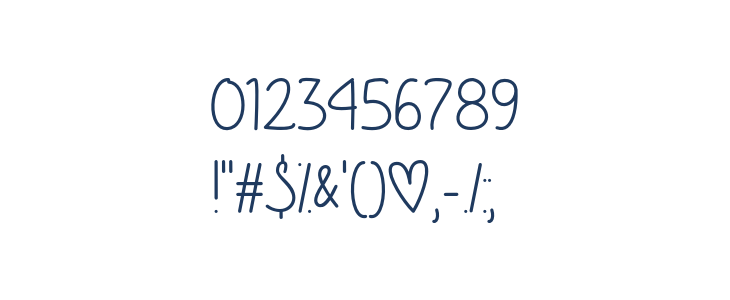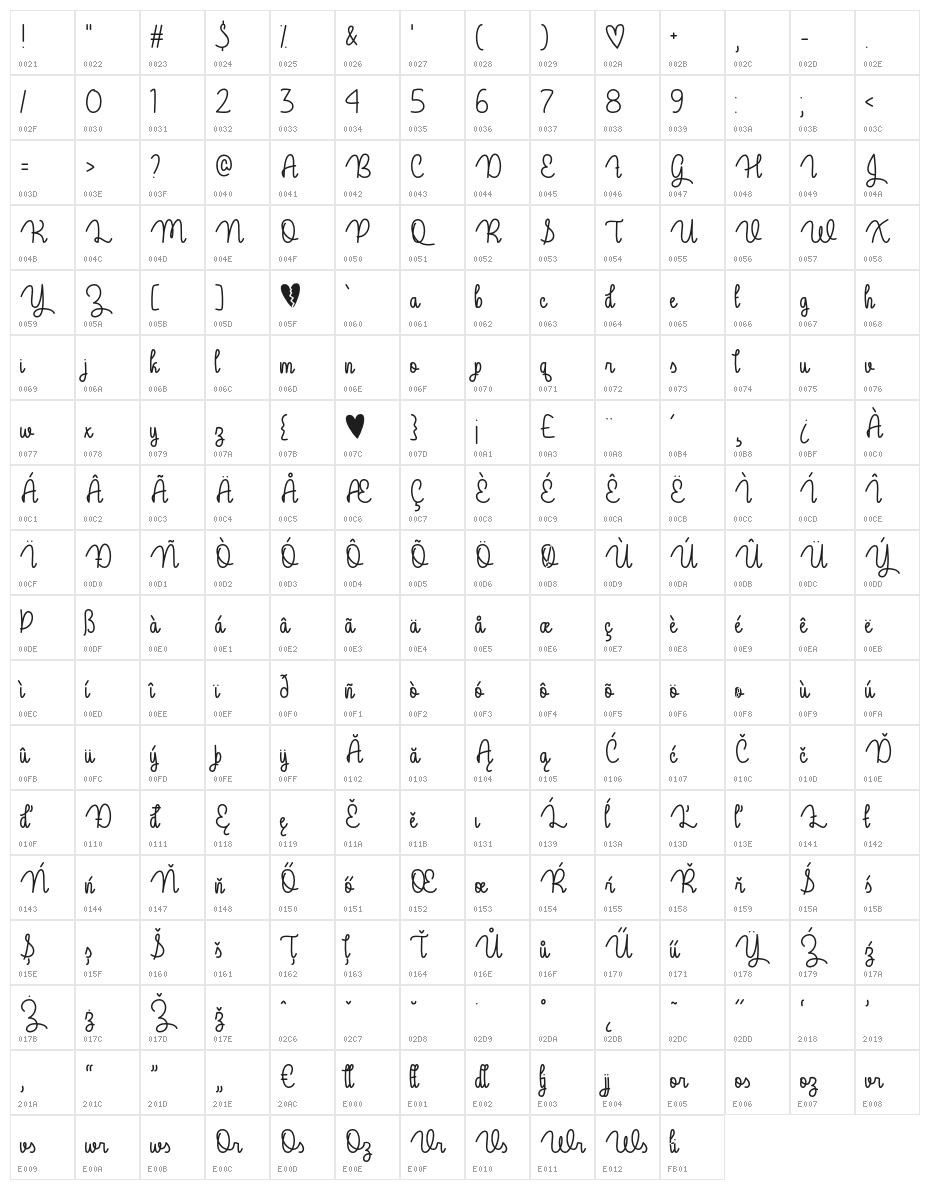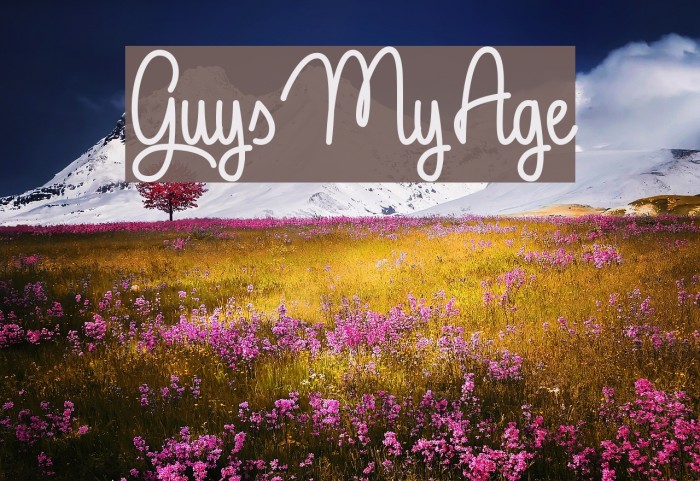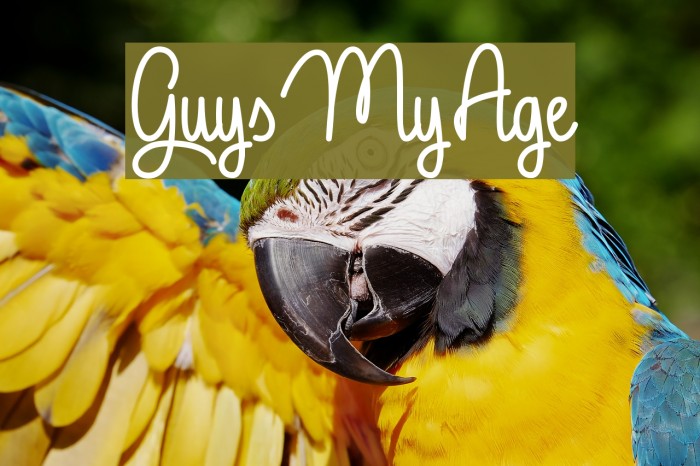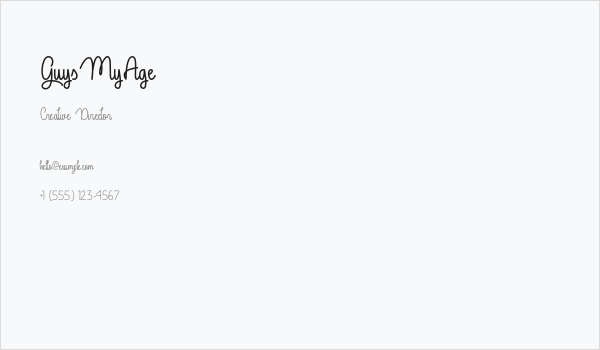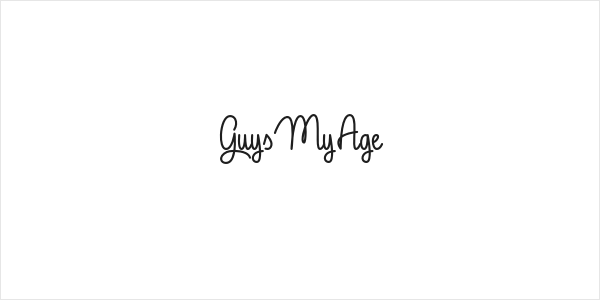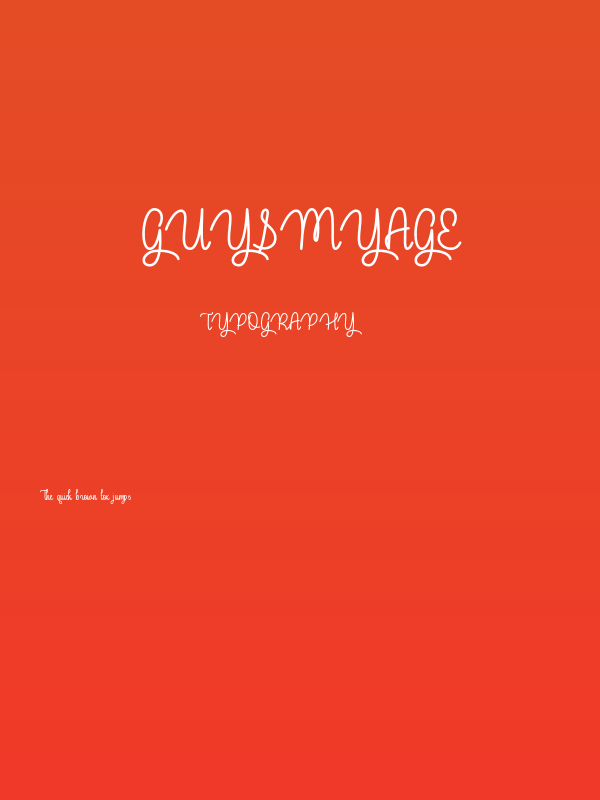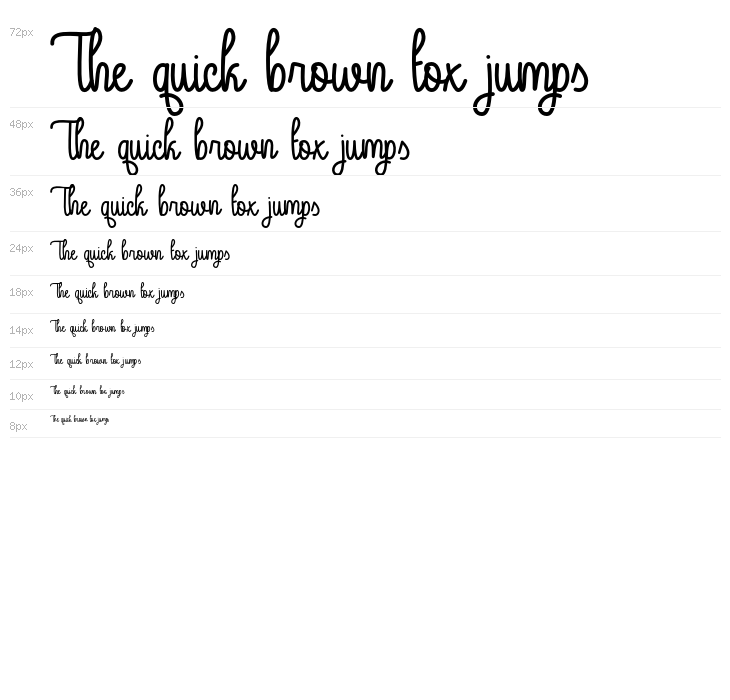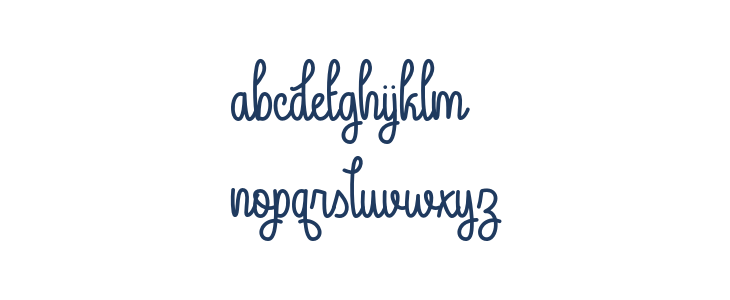
GuysMyAge Font
GuysMyAge Description
This font features a playful and whimsical script style, characterized by its fluid and connected letterforms. The uppercase letters exhibit a graceful looped design, while the lowercase letters maintain a consistent flow with rounded edges. The numerals are clear and legible, complementing the overall aesthetic. Special characters are creatively integrated, adding a touch of charm. The font's design is ideal for projects that require a personal and friendly touch, such as invitations, greeting cards, or branding materials. Its unique style ensures that it stands out while remaining readable.
Use CaseHeadlines, Logos, Invitations
Proposed ProjectsIdeal for invitations, greeting cards, branding materials, and playful designs.